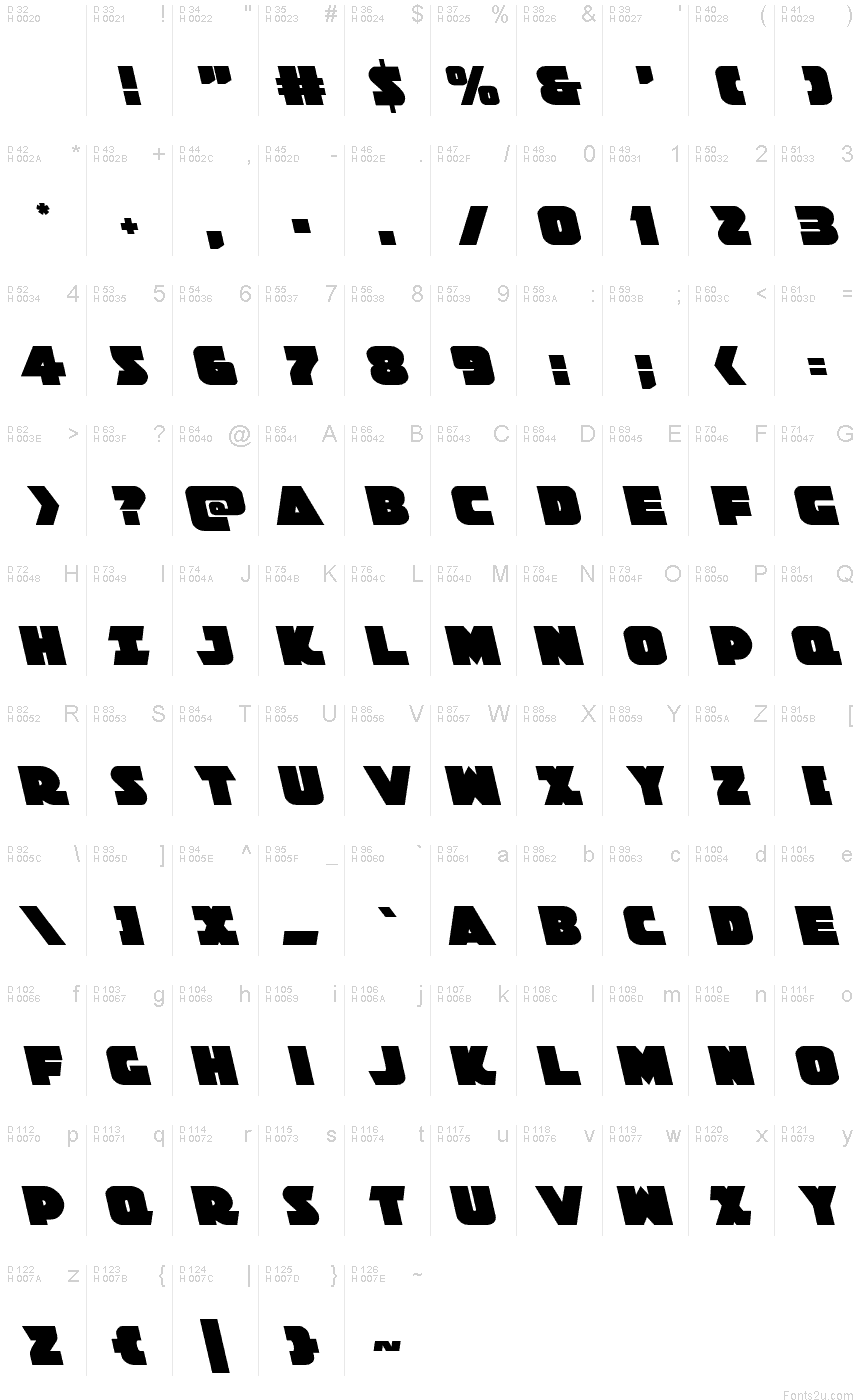
Jedi Special Forces Leftalic, created in 2012 by Iconian Fonts, is a free futuristic display font with a very heavy weight and a pronounced backward slant. Broad letter bodies press tightly across the line, interrupted by tiny openings and sharp triangular cuts. The silhouette feels fast and armored.
Game interfaces can use its compressed, hard-edged mass for faction names, mission screens, and promotional graphics, and the same aggressive profile suits science-fiction film posters. Album covers and esports merchandise also fit its geometry, since all of these settings benefit from lettering that resembles a custom insignia rather than ordinary type.